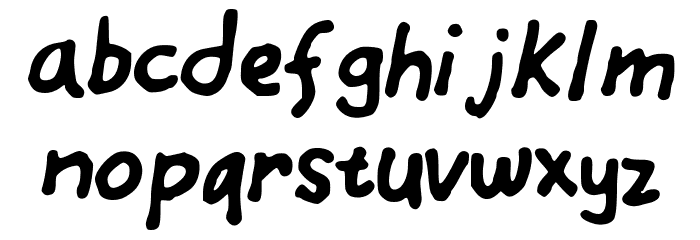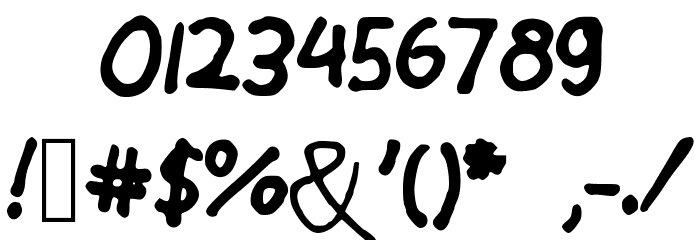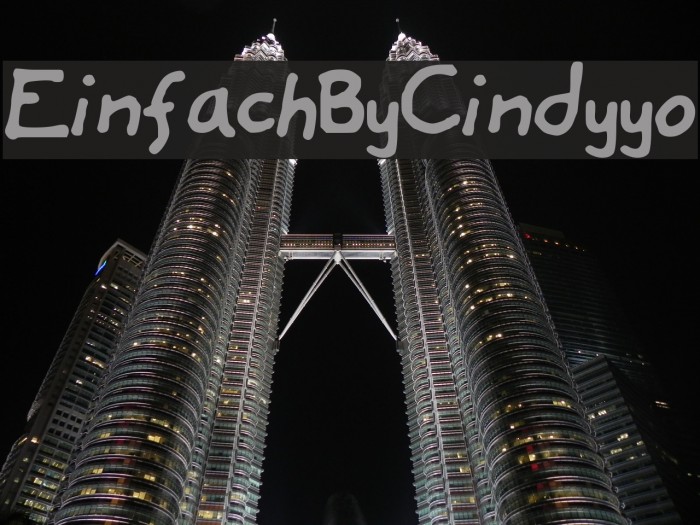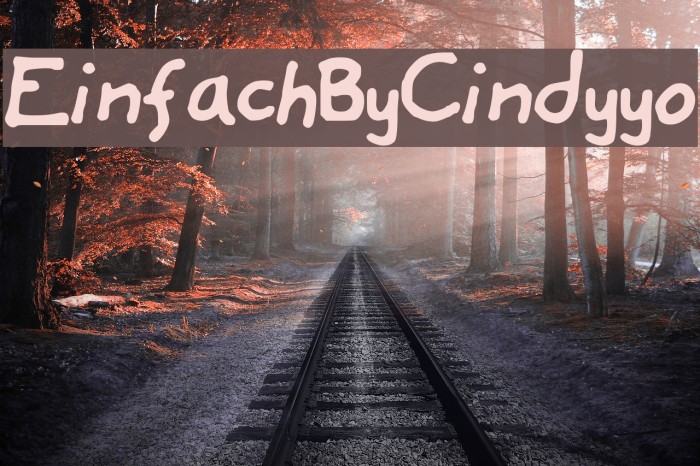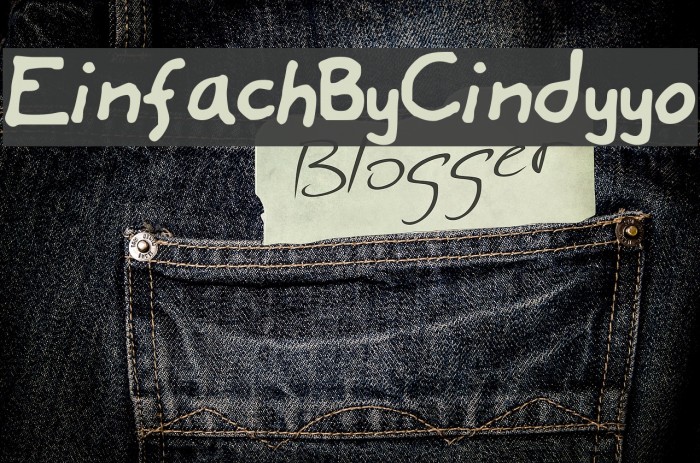
EinfachByCindyyo Font
This font features a playful and casual handwritten style, characterized by its uneven strokes and organic flow. The letters have a slightly irregular baseline, adding to the informal and friendly appearance. The uppercase and lowercase letters are distinct, with a noticeable difference in size and style, enhancing the font's versatility. The numbers and special characters maintain the same playful aesthetic, making it suitable for creative and informal projects. The overall look is approachable and lively, perfect for designs that aim to convey a sense of fun and spontaneity.
A playful, casual handwritten font with uneven strokes and an organic flow.
- Proposed Projects: Ideal for greeting cards, children's books, playful branding, and casual invitations.
- Overall Style: Casual, Playful
- Use Case: Headlines, Informal text, Creative projects